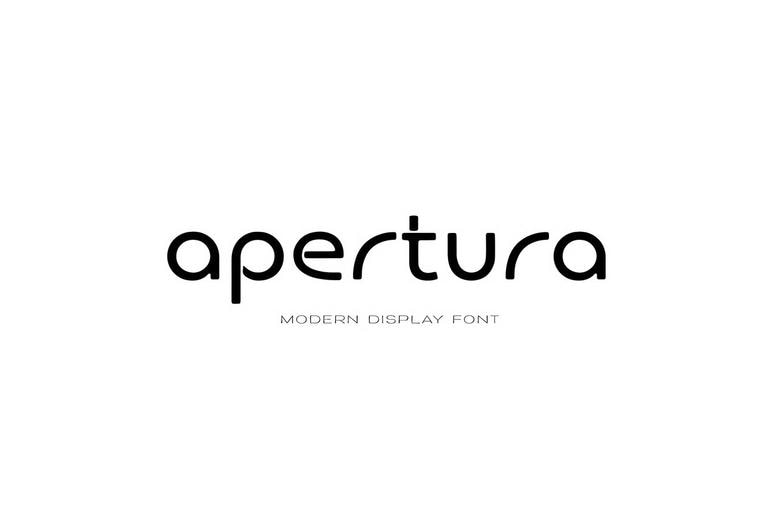
Apertura Font
Apertura is a modern rounded display sans with a clean geometric look. It works well for logos, branding, and headlines. You can download it instantly and use it for commercial projects.
Apertura Sans Serif Font